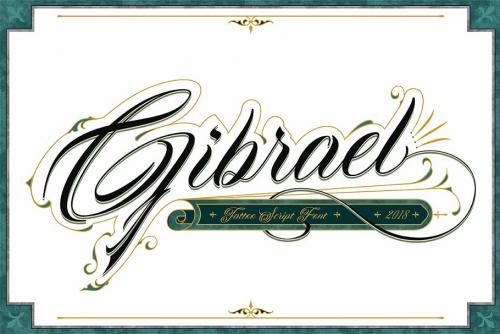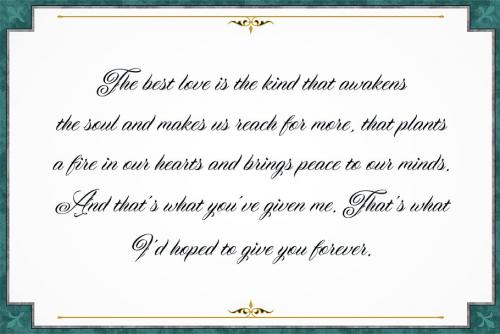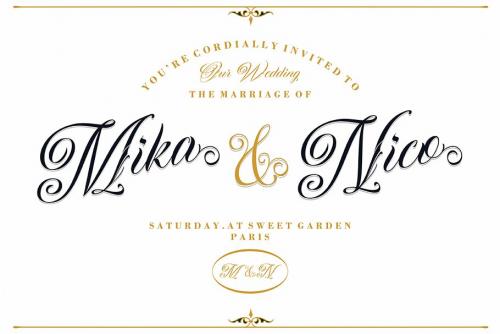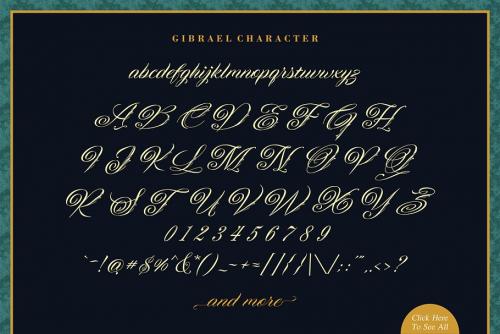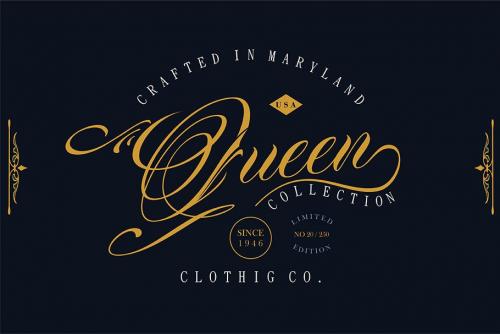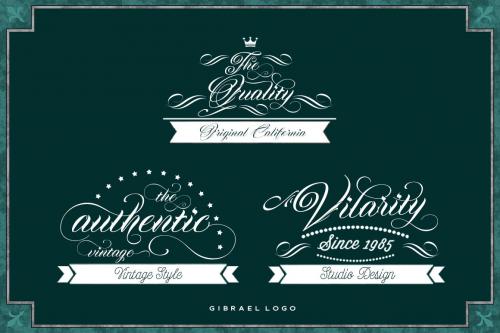
Gibrael Calligraphy Font – Tattoo Fonts Script Calligraphy
Gibrael Calligraphy Font
Gibrael Calligraphy Font is truly a perfect script for any project that’s need delicate typeface such as custom name, greeting card, create logos, etc, designed by TRF. A handy font for tattoo designer and artsy creative people!
It’s a beautiful, elegant, clean and unique typeface you need to have! Contains over 600 glyphs, it has many alternate characters so you can make a beautiful decorative type easily.